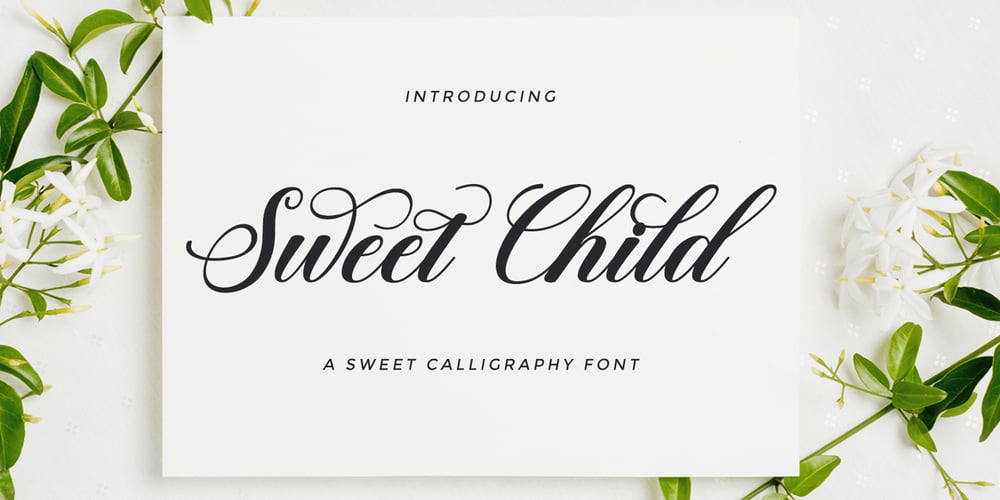
Sweet Child Script Font Family was designed by Rizki Andika and published by Letterfreshstudio. Sweet Child Script contains 1 styles and family package options. Sweet Child Script is a modern script with handwriting, decorative characters, and dancing baselines! very suitable in use Like blog header, branding, t-shirt, wedding, social media, product design, stationery, advertising, clothing, book cover, business cards, greeting cards, branding, merchandise, invitations and handmade quotes and more.Sweet Child Script features OpenType stylistic alternates, ligatures and International support for most Western Languages is included. To enable the OpenType Stylistic alternates, you need a program that supports OpenType features such as Adobe Illustrator CS, Adobe Indesign & CorelDraw X6-X7, Microsoft Word 2010 or later versions.How to access all alternative characters using Adobe Illustrator: https://www.youtube.com/watch?v=XzwjMkbB-wQSweet Child Script is coded with PUA Unicode, which allows full access to all the extra characters without having special designing software. Mac users can use Font Book , and Windows users can use Character Map to view and copy any of the extra characters to paste into your favourite text editor/app.How to access all alternative characters, using Windows Character Map with Photoshop:https://www.youtube.com/watch?v=Go9vacoYmBwIf you have any question, don’t hesitate to contact me by email.Thank you!